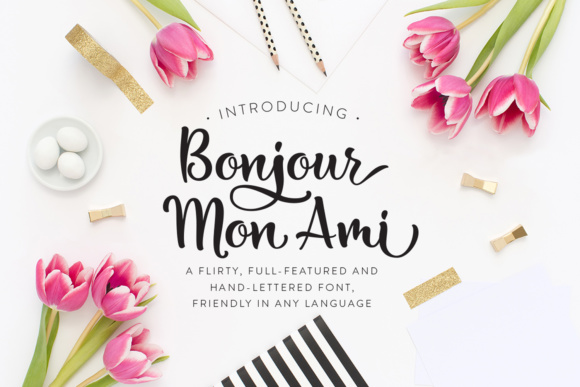
Immerse yourself in the enchanting world of Bonjour Mon Ami, a uniquely charming script font brimming with elegance and sophistication. Each meticulously crafted letter dances across the page, captivating the eyes and leaving an indelible mark on your creative endeavors. Inspired by the beauty of handwritten notes, Bonjour Mon Ami exudes a timeless allure that speaks to the heart.
With its soft curves and graceful flourishes, Bonjour Mon Ami is a visual masterpiece that adds a personal touch to any project. Its versatility knows no bounds, seamlessly adapting to a myriad of design aesthetics, from whimsical invitations and heartfelt love letters to stylish logos and captivating social media posts.
Elevate your designs to new heights with Bonjour Mon Ami. Its delicate charm and timeless appeal will transform your words into works of art, leaving a lasting impression on your audience. Embrace the beauty of self-expression and let Bonjour Mon Ami carry your message with grace and elegance.
Say Bonjour Mon Ami to creativity and let your imagination soar. From heartfelt personal notes to captivating marketing materials, this font family is your trusted companion, guiding you along the path of design excellence. Experience the magic of Bonjour Mon Ami today and let your creativity bloom.